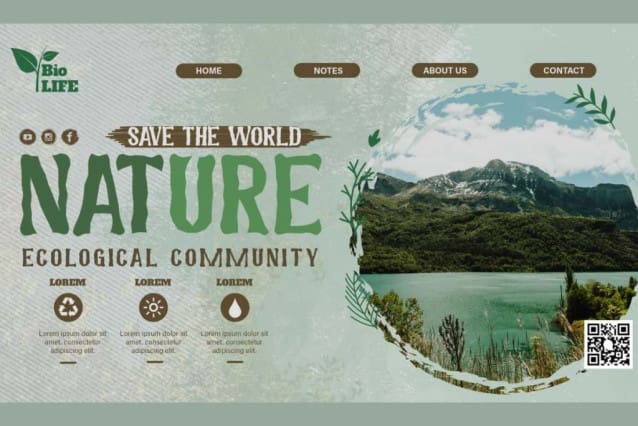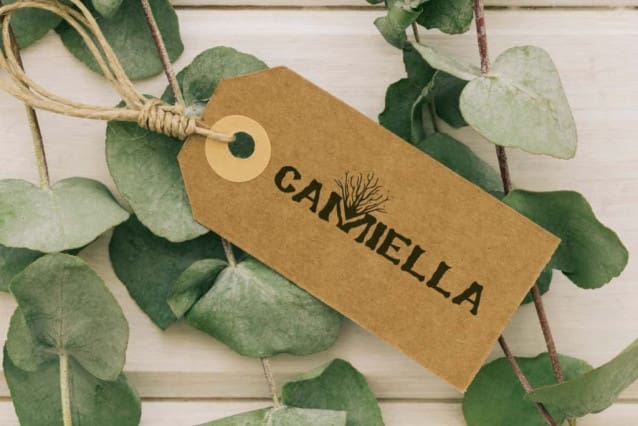
Heary Display Font is a decorative display font with tree root arts and some interesting alternatives to make your projects stand out. The font initially has retro display font with a creative touch poured into it. The font has a horror character with a shape like a haunted tree root. It will be perfect for banner, billboard, blog, brochure, card design, covers, heading, headline, label tag, logo, mockup, poster, quotes, template, website, etc.
Heary Display Font includes full set of ALL CAPS for Uppercase and Lowercase Basic Characters in different sizes, Numbers, Punctuation, Symbols and Alternates. This font captures the essence of organic growth with intricate letter patterns found in the roots of nature, this font style exudes a sense of earthiness and authenticity. It will be perfect for author, clothing brand, community or organization, corporate, film, graphic design, handicraft, movie, plant growers, printing, publishing, writer, and so on.